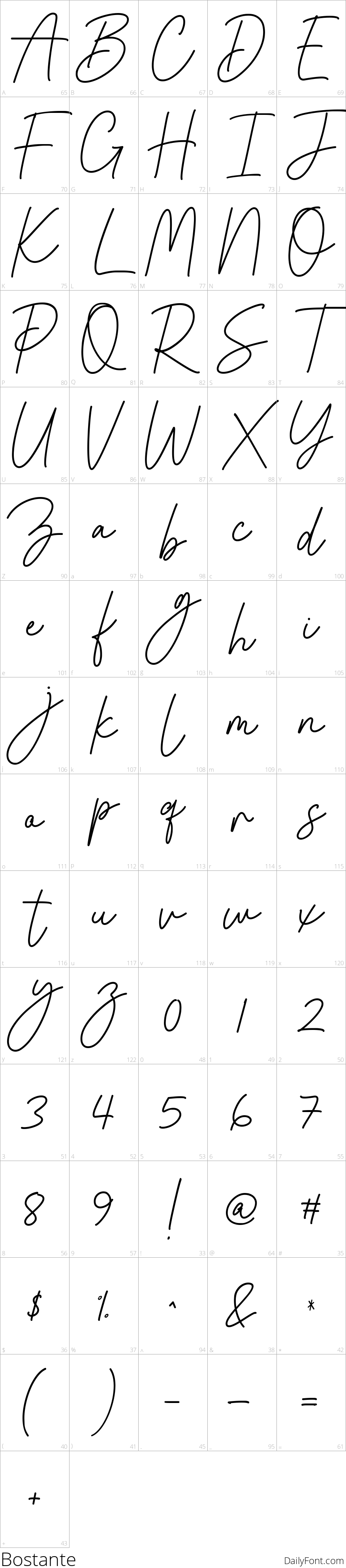
Bostante
Discover the elegance and sophistication of Bostante, a stunning handwritten font that exudes charm and character. This beautifully crafted typeface is perfect for anyone seeking a unique and personalized touch for their designs.
With its fluid script-like strokes and subtle flair, Bostante adds an air of refinement to any project, making it an ideal choice for luxury brands, high-end designers, and those looking to elevate their visual identity. Its flowing lines and cursive feel evoke the warmth of handmade typography, while its precision-crafted design ensures crisp readability.
Whether you're a designer seeking to add whimsy and personality to your work, or a business owner looking to convey sophistication and professionalism, Bostante is the perfect companion for your creative endeavors. Its versatility makes it suitable for a wide range of applications, from logos and branding materials to packaging and editorial content.
If you're searching for a font that embodies creativity, elegance, and personality, look no further than Bostante. This exceptional handwritten font is sure to become a treasured asset in your design arsenal, helping you bring your most imaginative projects to life with style and flair.